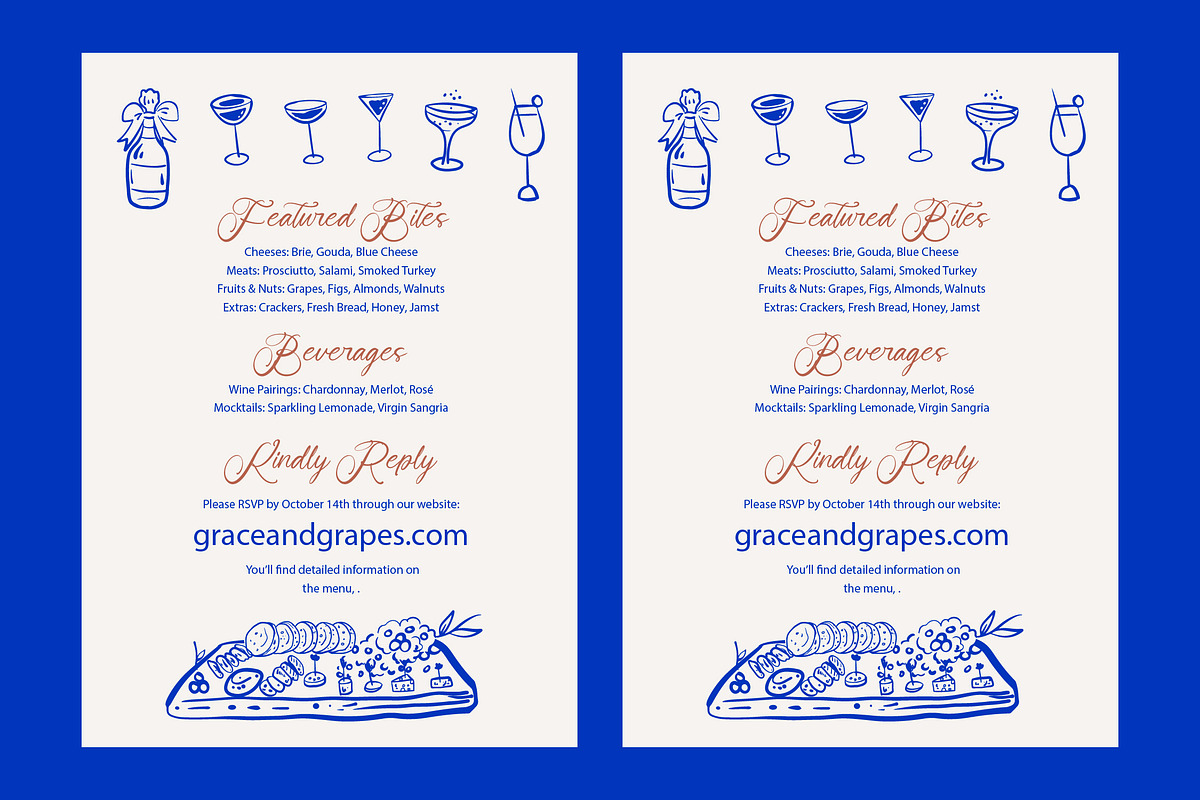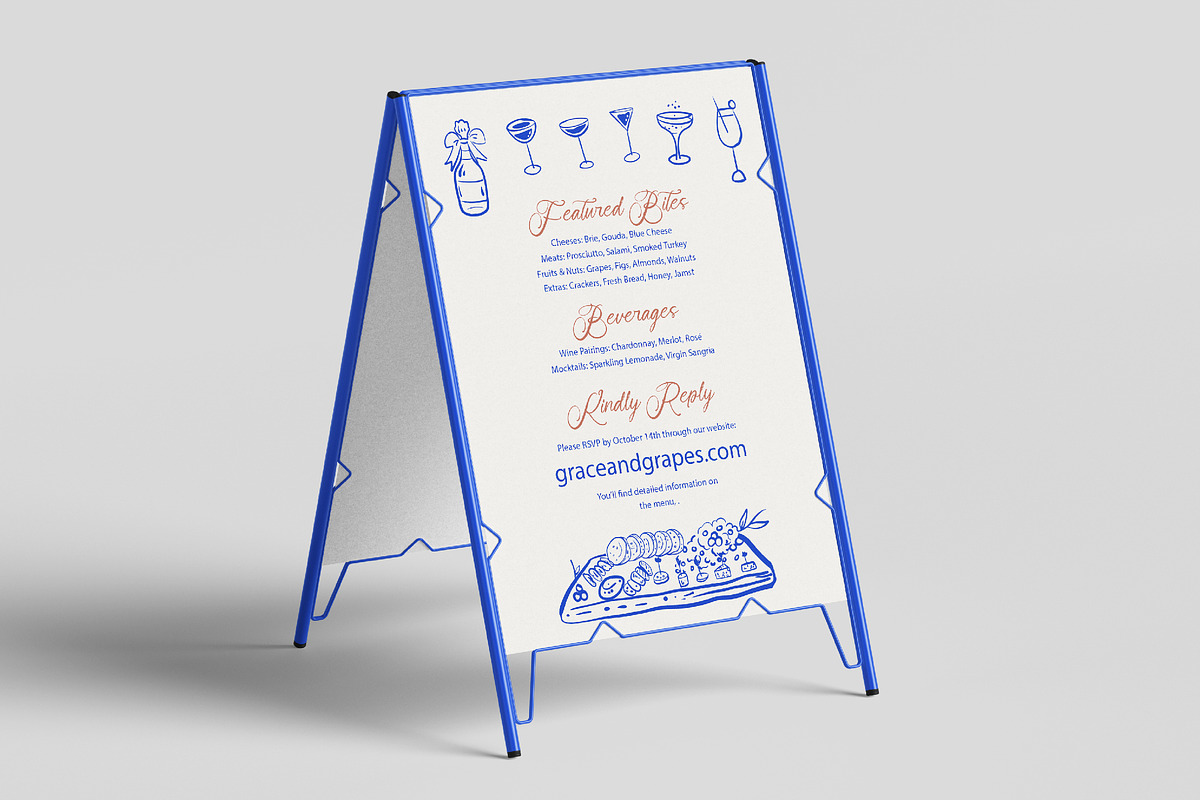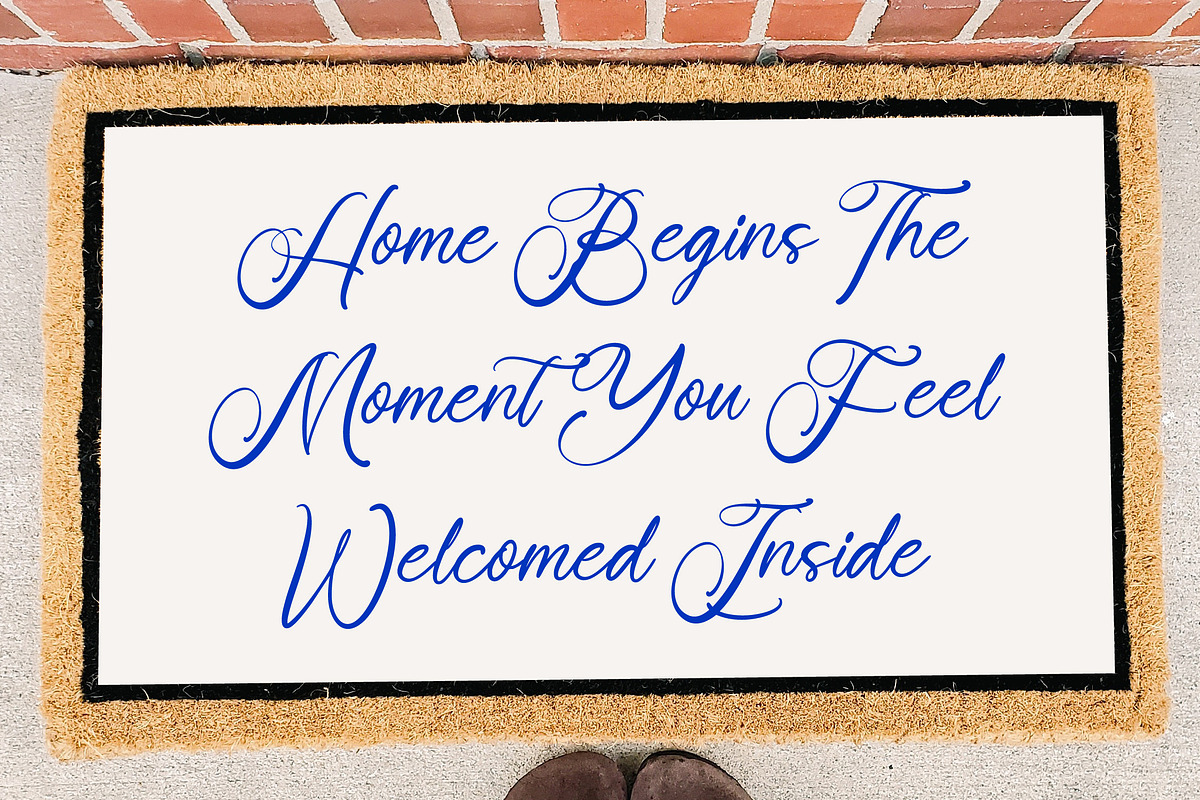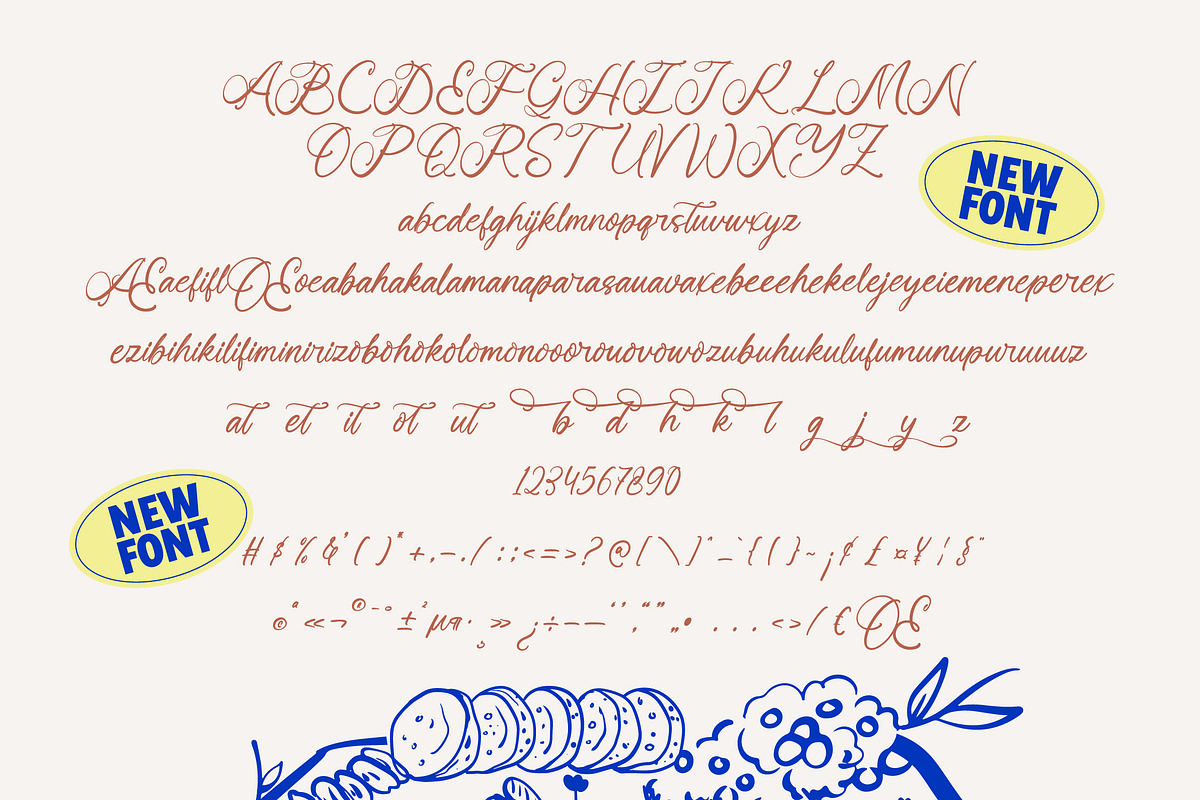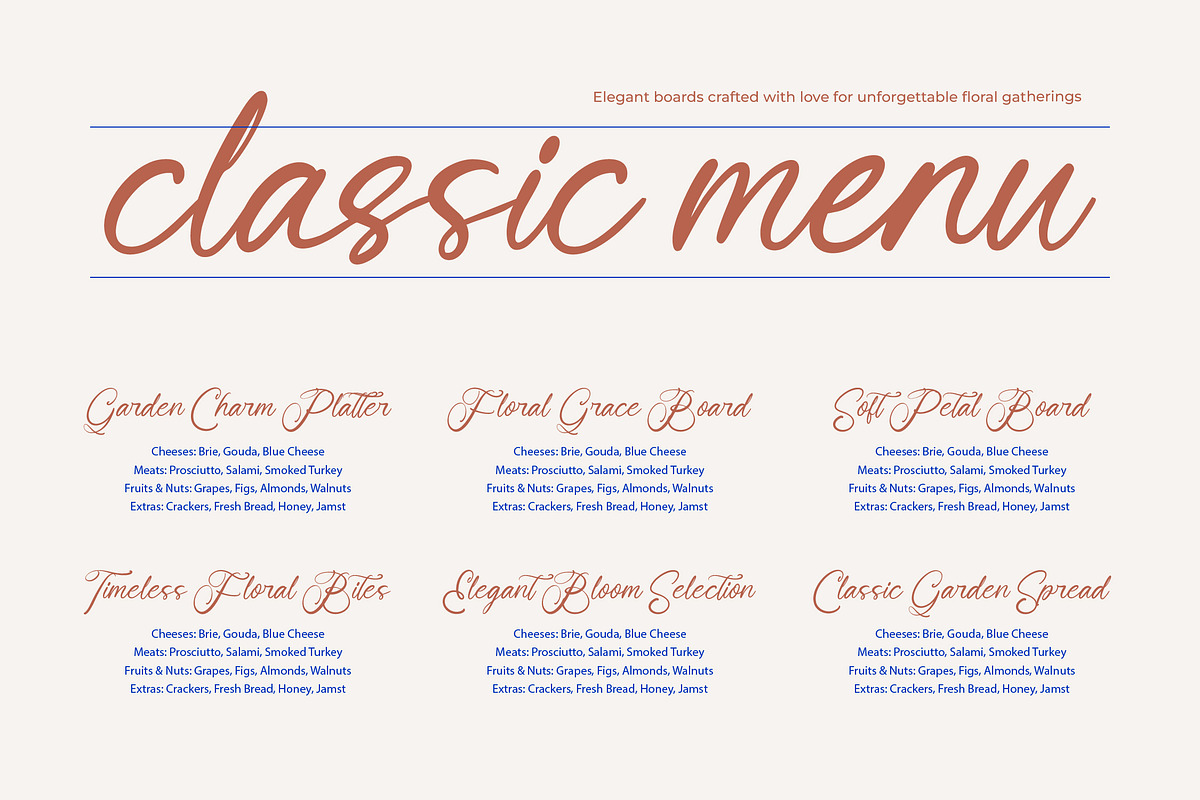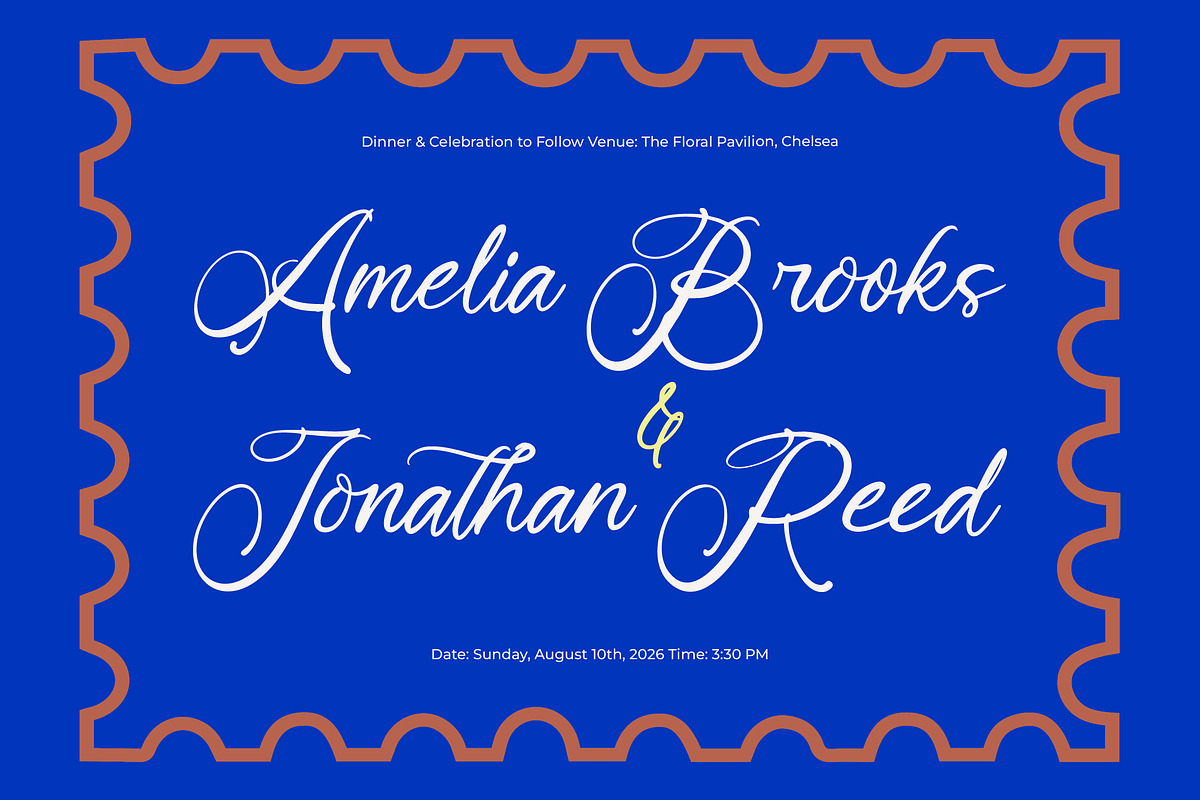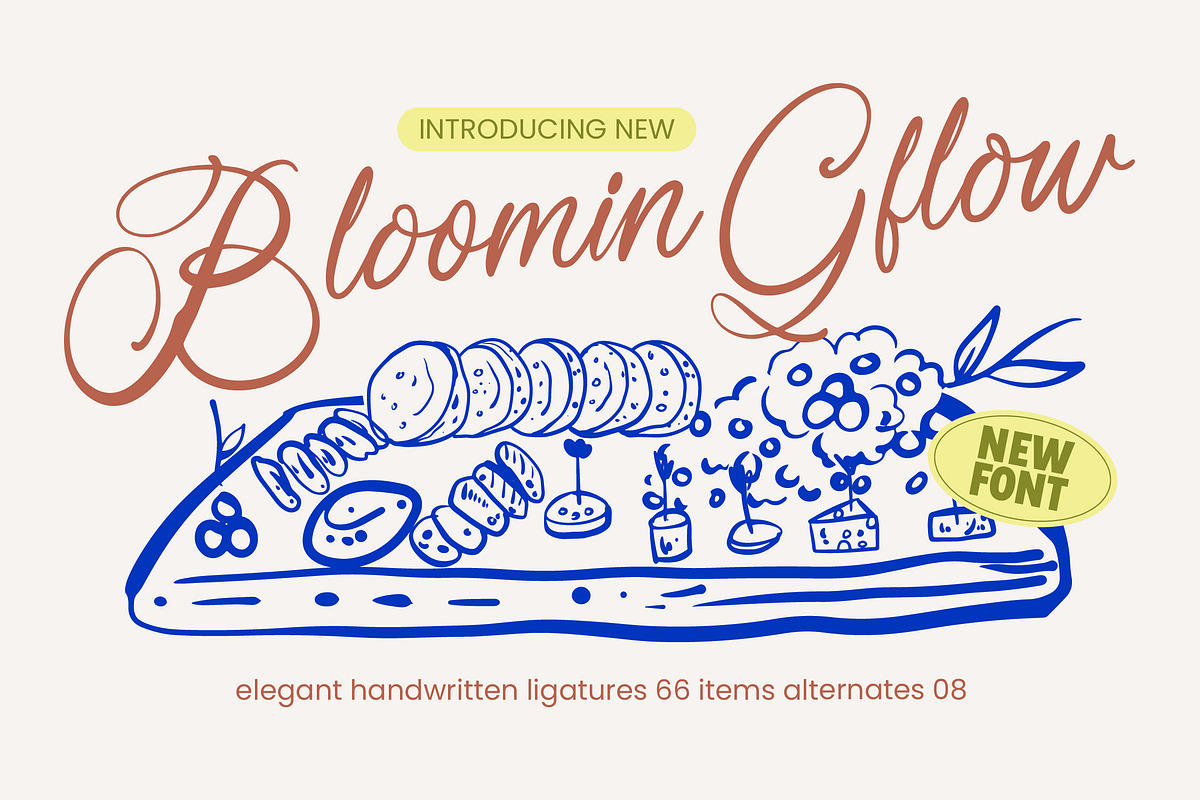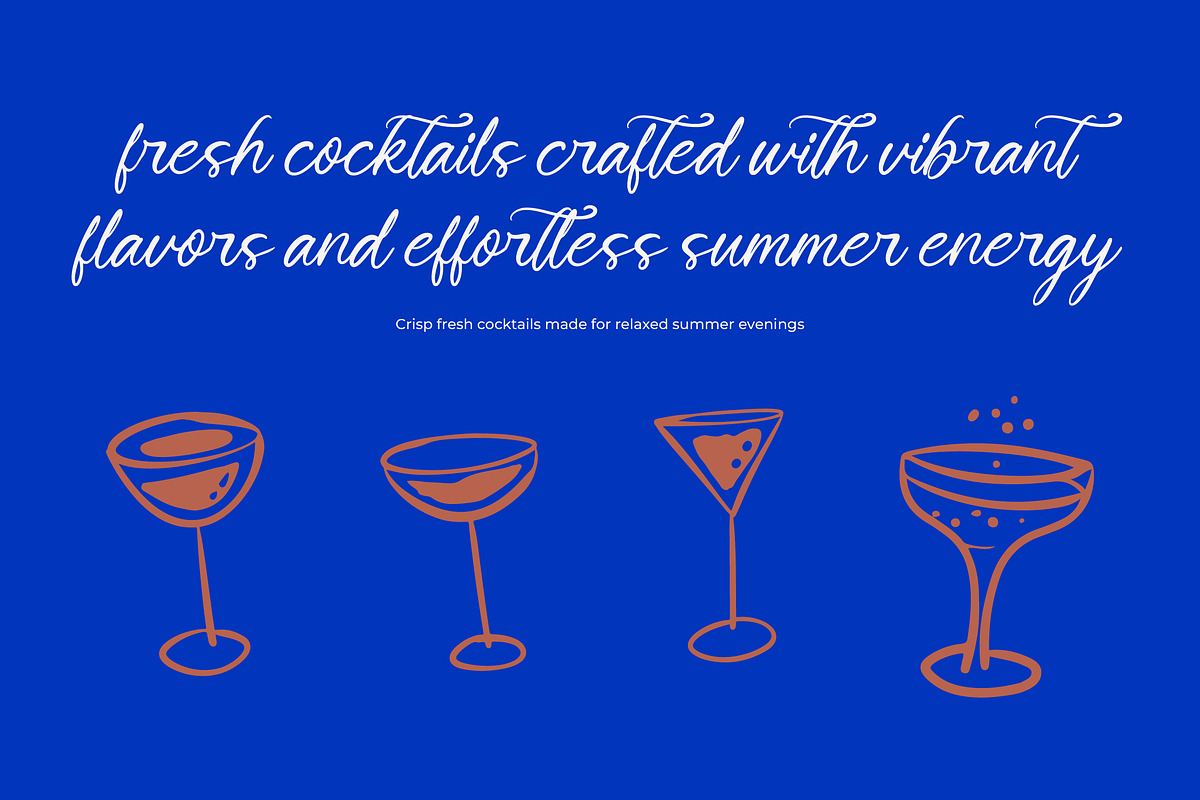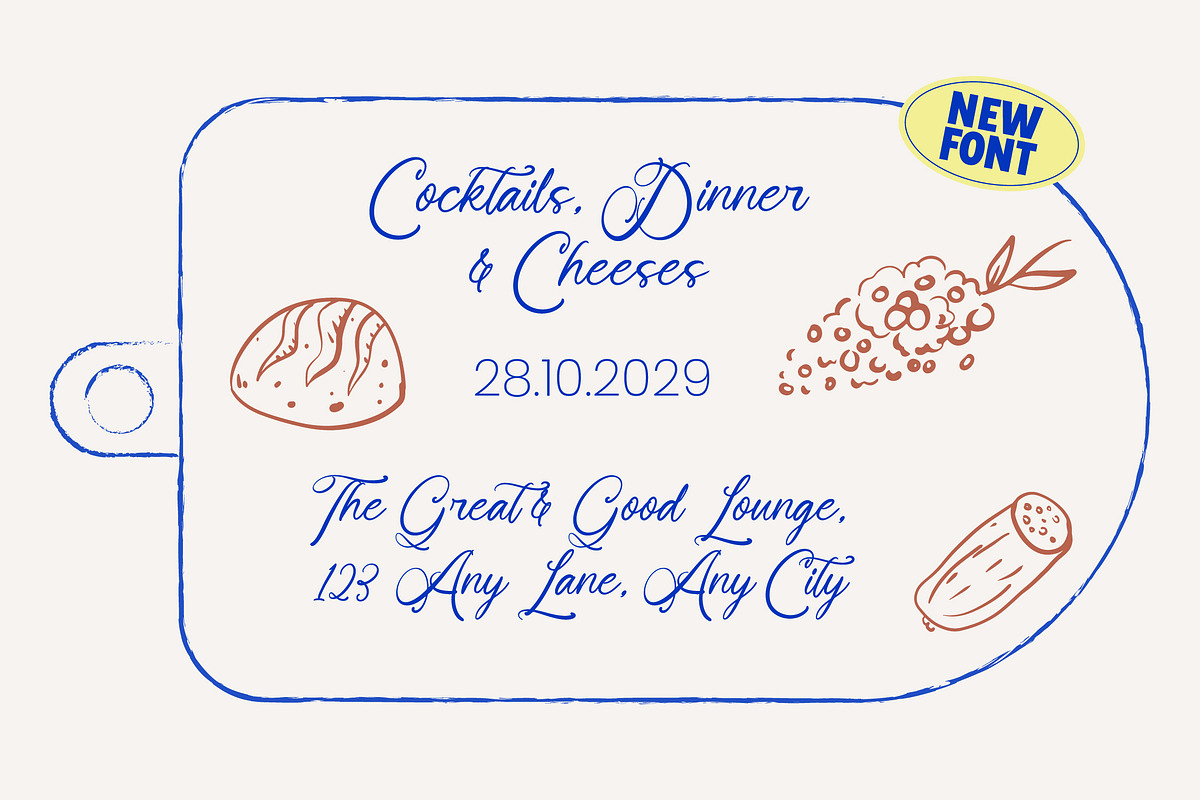
Bloomin Gflow Elegant Handwritten
Bloomin Gflow is an elegant handwritten font that captures a natural, flowing character with refined strokes and expressive curves. Designed to feel warm, personal, and stylish, this font brings a handcrafted touch that feels both graceful and contemporary.
With its smooth letter connections, organic rhythm, and carefully balanced forms, Bloomin Gflow adds charm and personality to your typography while maintaining clarity and visual harmony. It is ideal for branding, invitations, packaging, lifestyle designs, editorial titles, menus, and creative headlines that require an authentic handwritten feel.
Elegant Handwritten & Expressive – Perfect for projects that need warmth, creativity, and a human touch Rich Ligatures & Alternates – Crafted to create fluid, natural lettering with visual variety Multilingual Support – Includes a wide range of international characters Optimized for Print & Digital – Clean outlines ensure smooth rendering across all platforms
Complete Character Set: Uppercase, lowercase, numerals, punctuation, ligatures, and multilingual characters
Bring natural elegance and handcrafted beauty to your designs with Bloomin Gflow — a handwritten font built to elevate modern creative projects with style and personality.